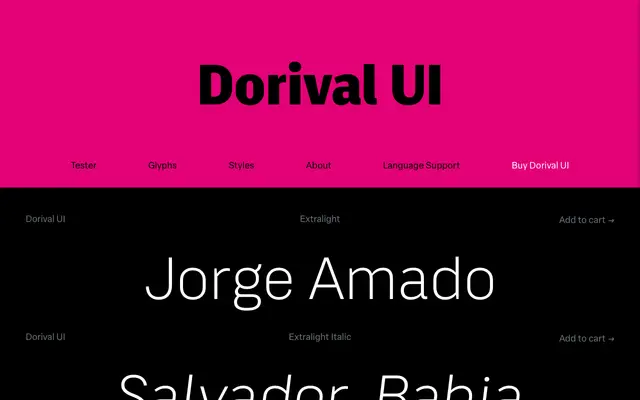
Dorival UI
Blackletra · Daniel Sabino, Lucas Gini · 2024
A DIN-influenced geometric sans with multiplexed spacing across all weights, designed primarily for interface and digital environments.
Built around the engineered structure of DIN 1451, Dorival UI introduces diagonal terminals and a degree of stroke contrast to soften the mechanical rigidity. Its key technical feature is multiplexed spacing: every weight shares identical glyph widths and kerning, so switching weights in a layout causes no text reflow or repositioning. The family spans seven weights with matching italics across three widths, Normal, Narrow and Condensed, making it serviceable for both screen interfaces and print.
Loosely derived from the engineered geometry of DIN 1451, with subtle humanistic traits such as diagonal terminals and mild stroke contrast, placing it firmly in the geometric sans tradition with a functional, screen-oriented character.